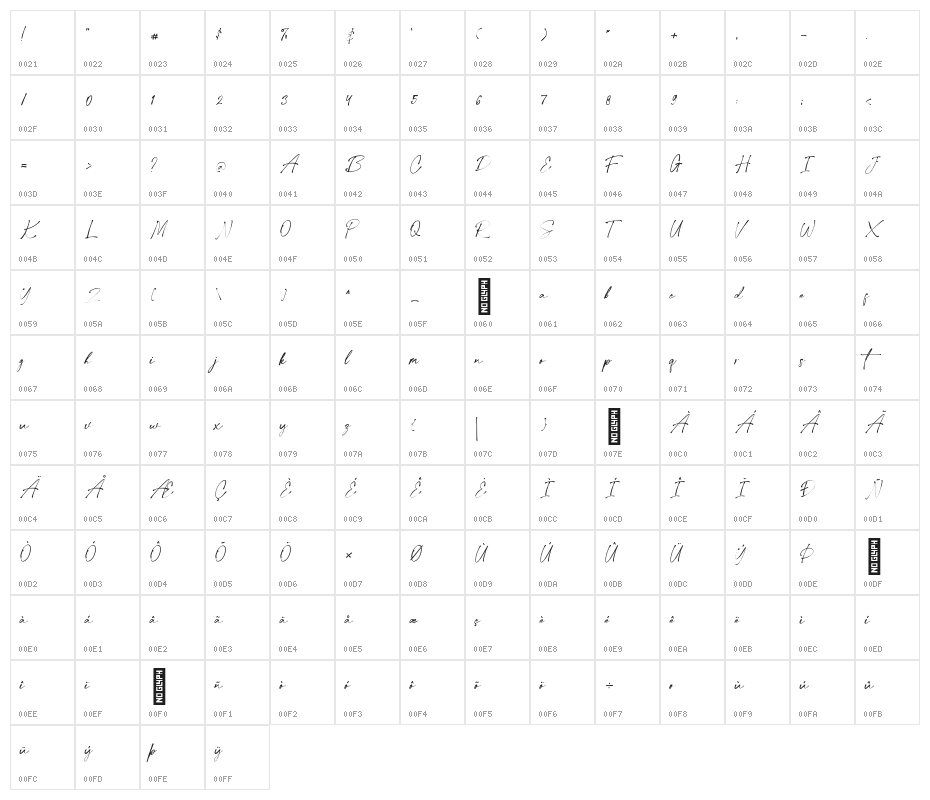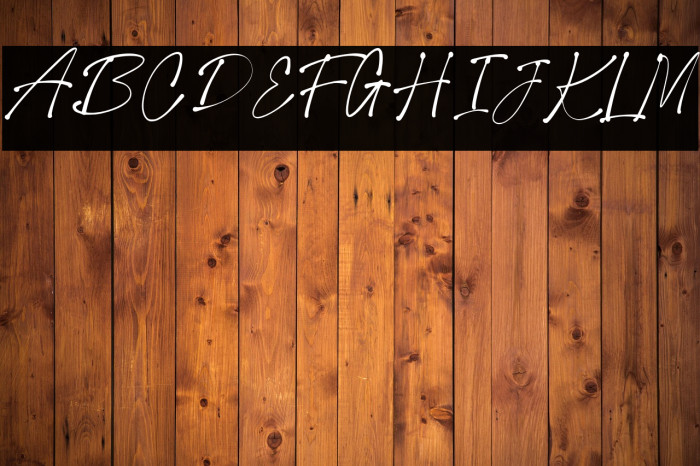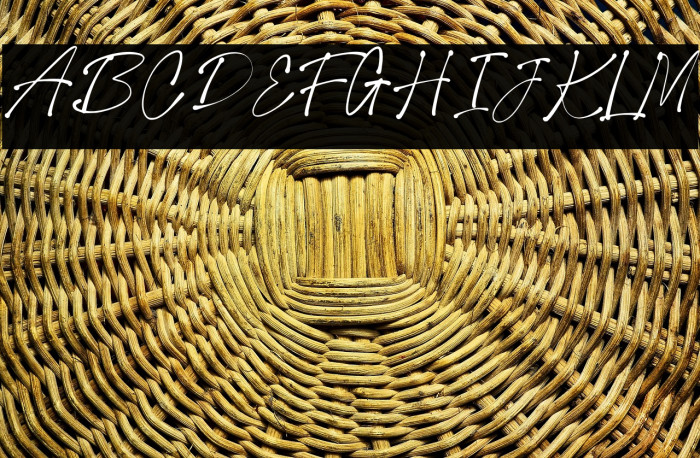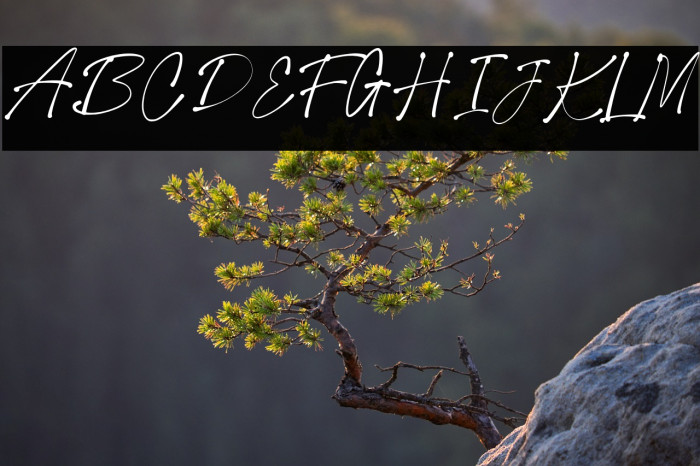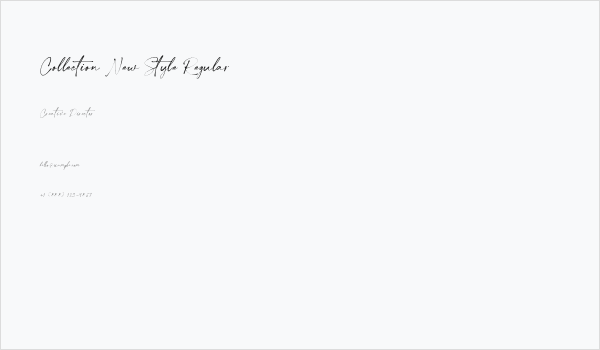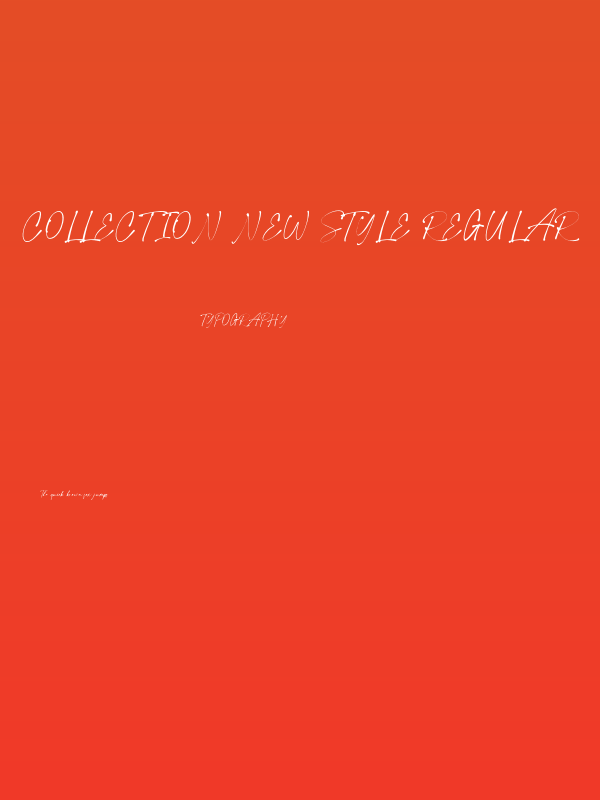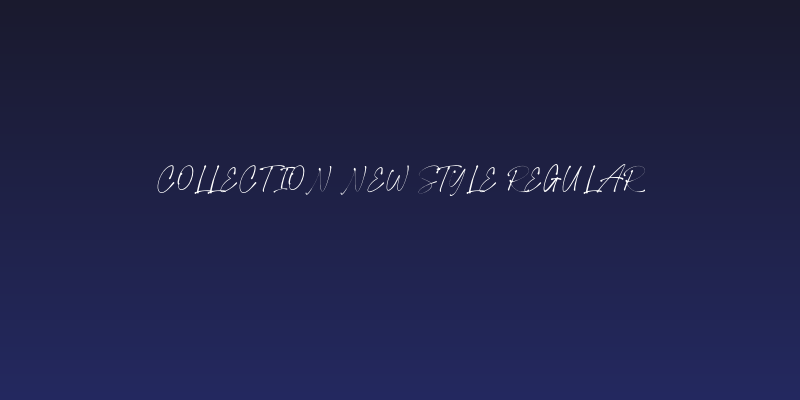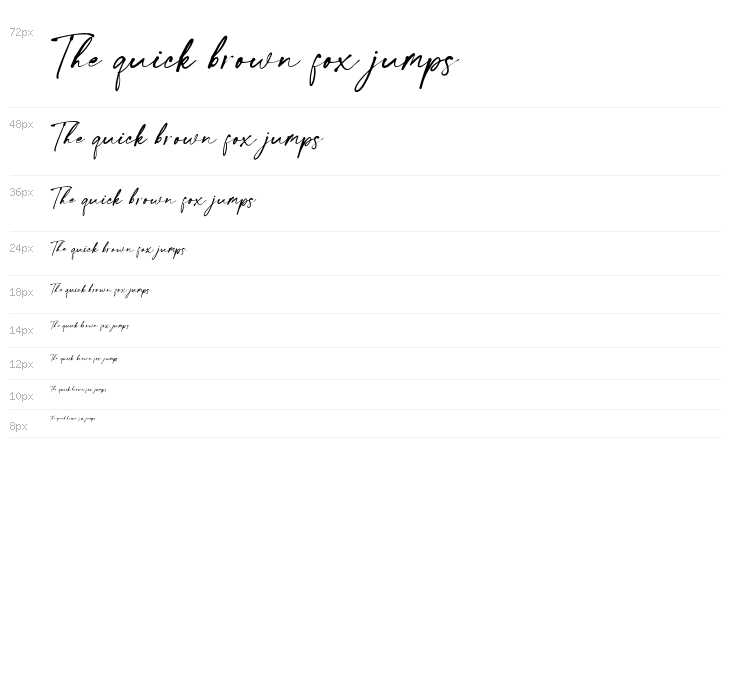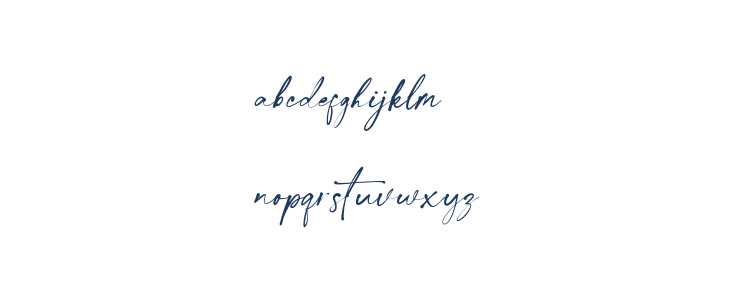
Collection New Style Regular Font
Collection New Style Regular Description
This font exhibits a fluid and elegant script style, characterized by its cursive and handwritten appearance. The letters are connected, creating a seamless flow that mimics natural handwriting. The uppercase letters are slightly more elaborate, with extended strokes and loops, while the lowercase letters maintain a consistent and smooth rhythm. The numerals and special characters are designed to complement the overall script style, ensuring readability and aesthetic harmony. This font is ideal for projects that require a personal touch or a sophisticated, artistic flair.
| Overall Style | Elegant, Artistic |
| Use Case | Logos, Invitations, Artistic projects |
| Proposed Projects | Ideal for wedding invitations, greeting cards, personal branding, and artistic projects. |